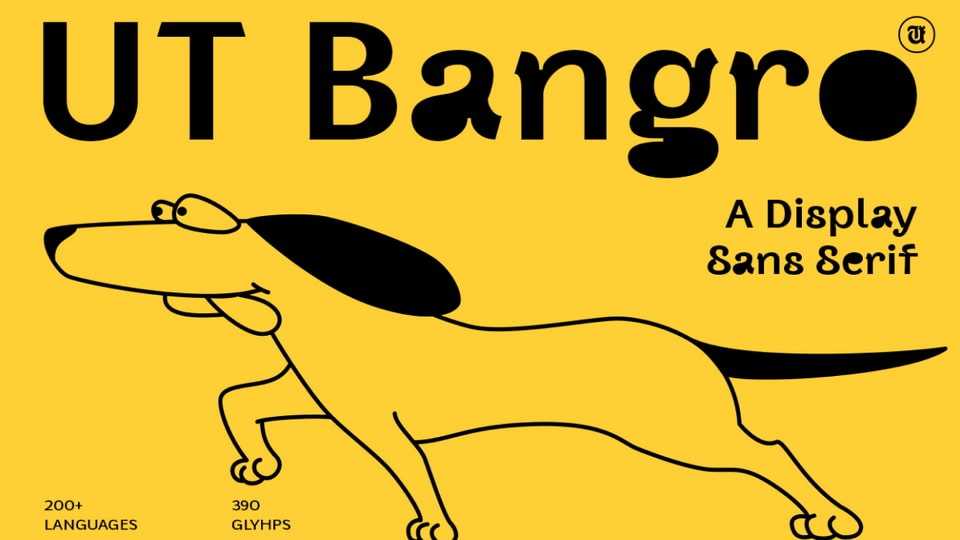
Download UT Bangro font, a bold display sans serif that combines playful energy with confident structure. Every curve, notch, and terminal has been carefully crafted to bring your words to life.
Designer: Universitype Foundry